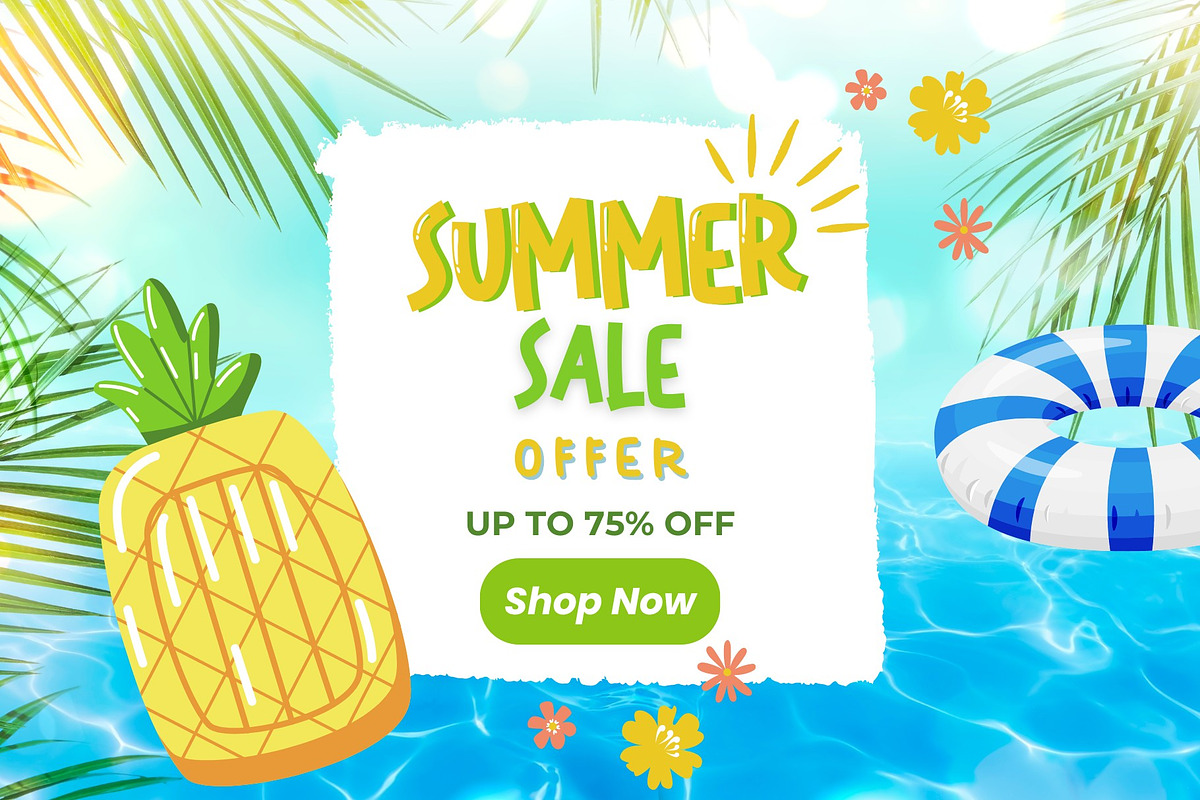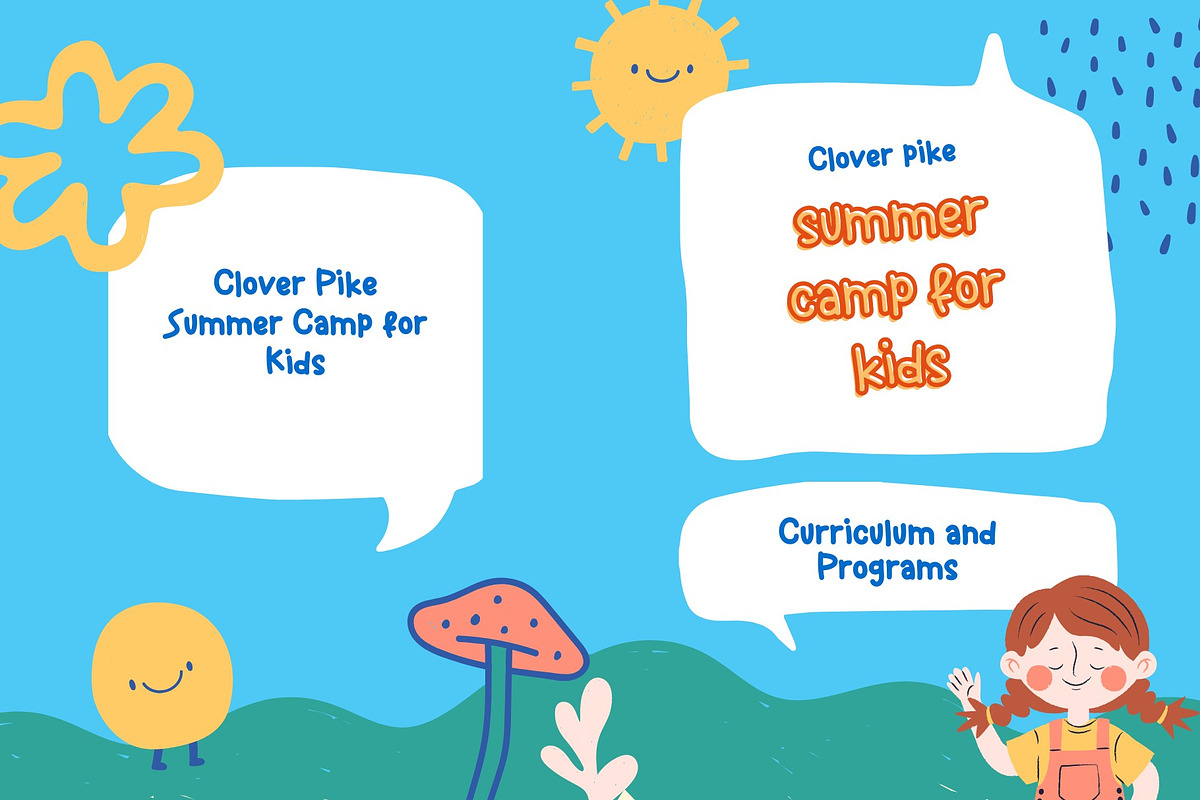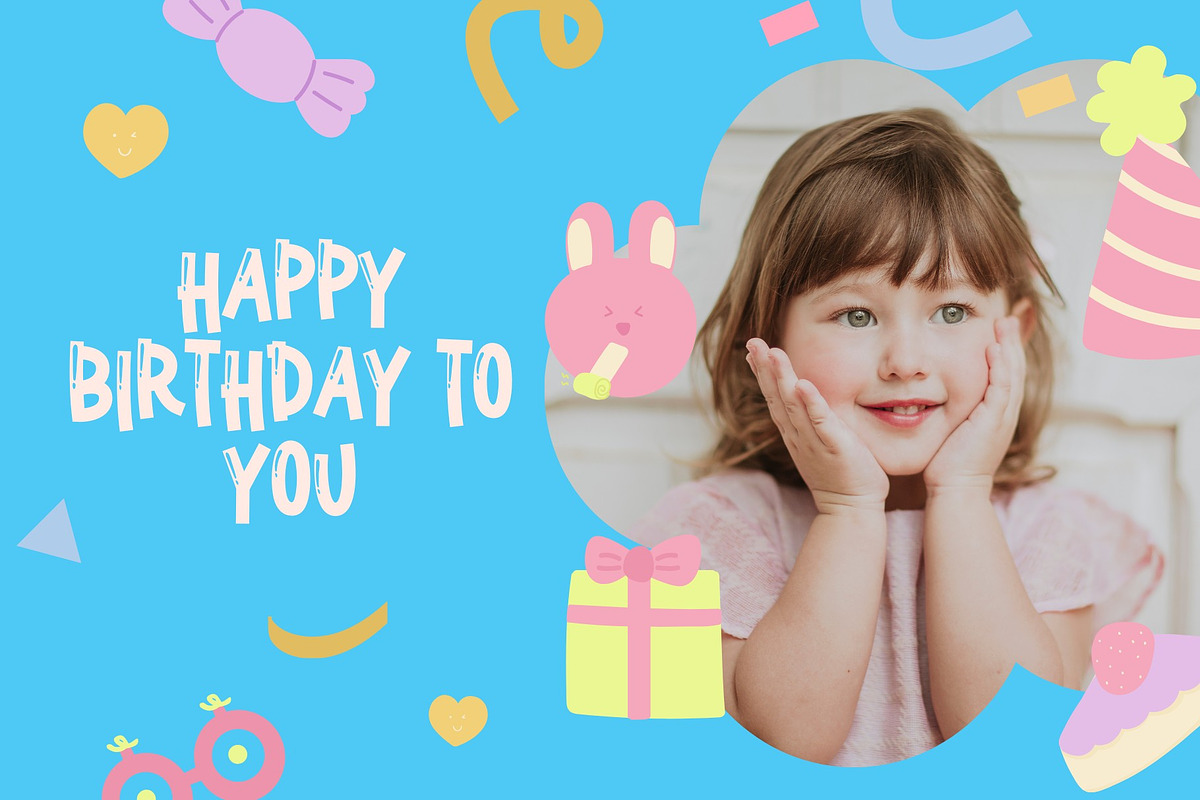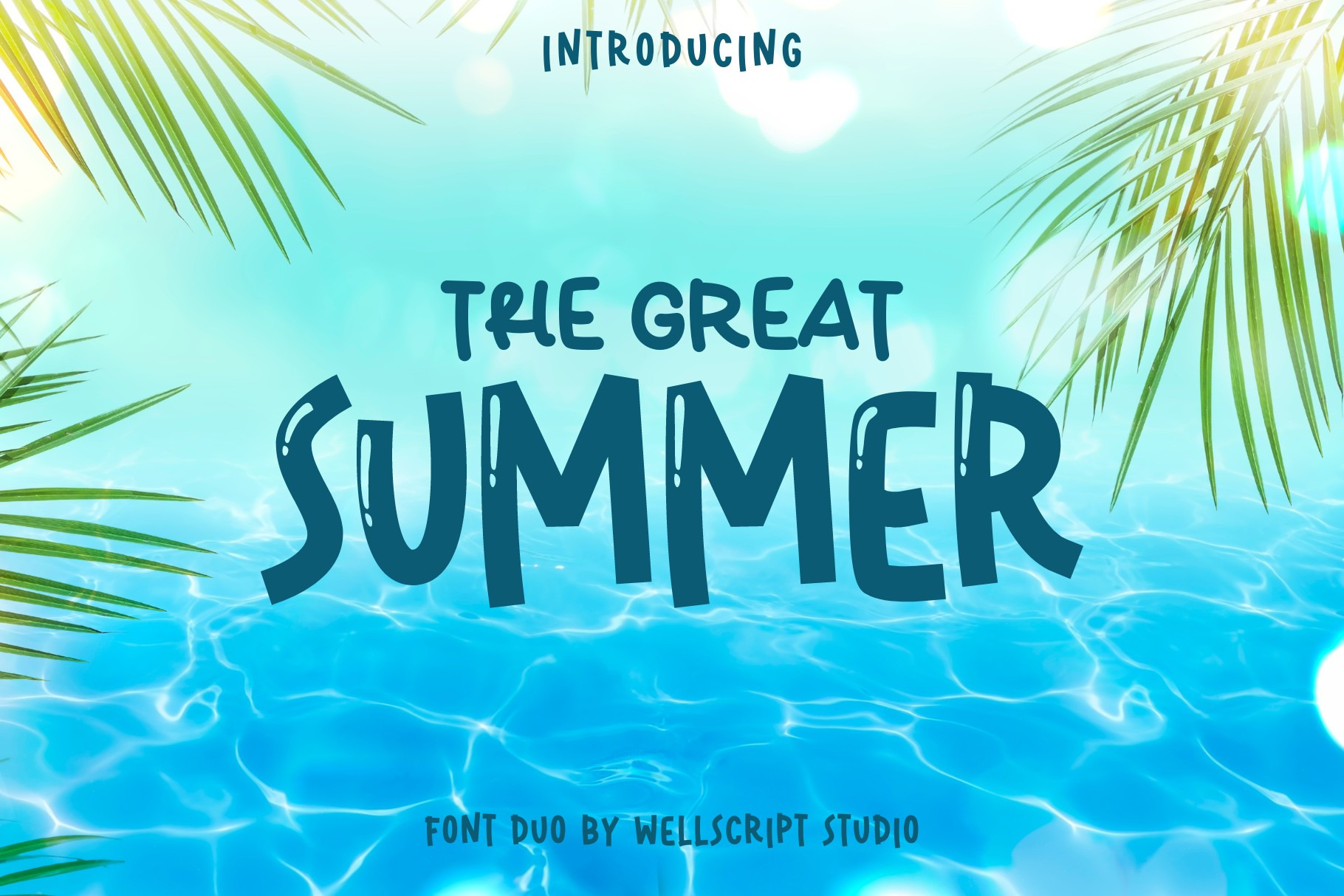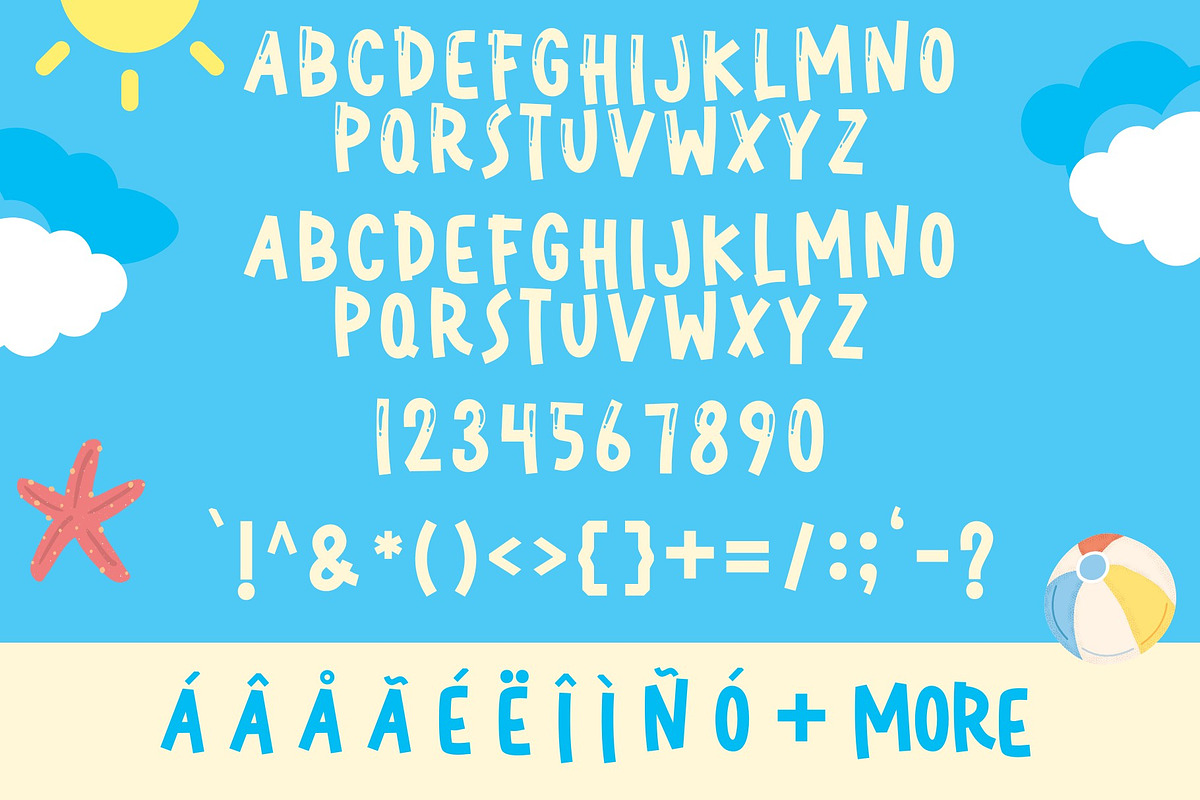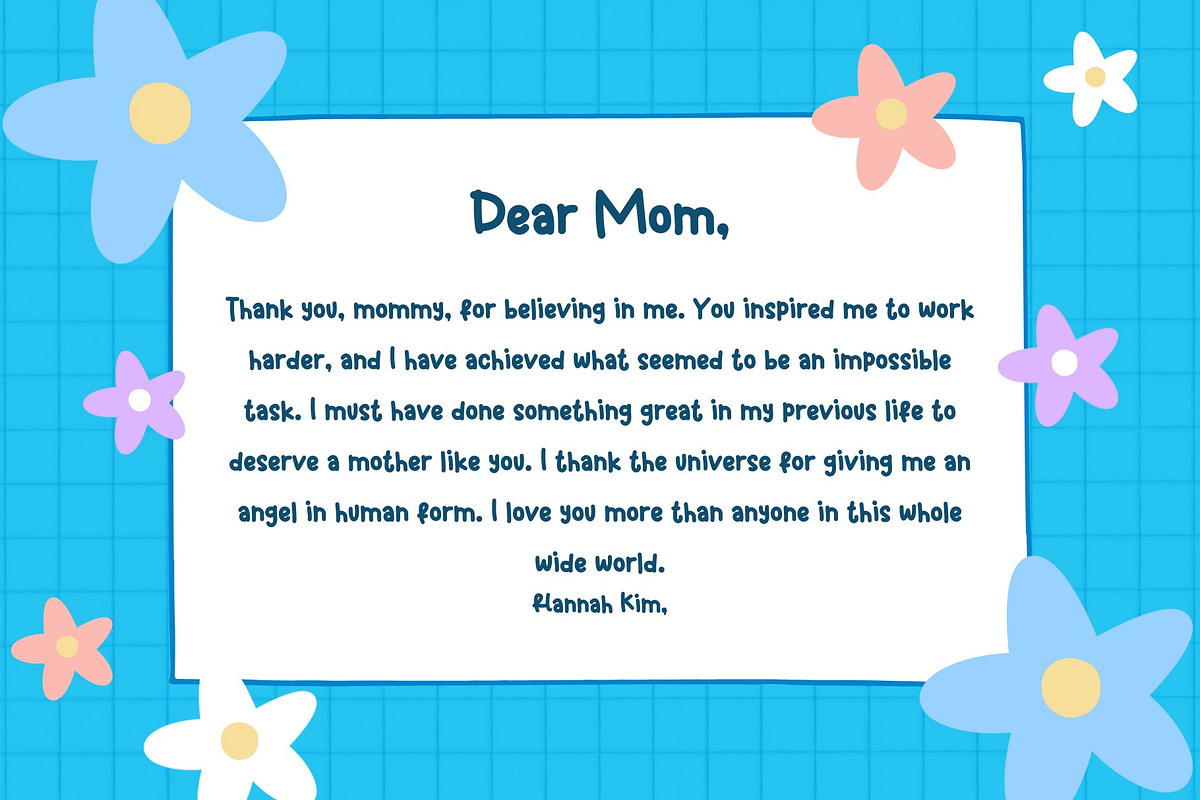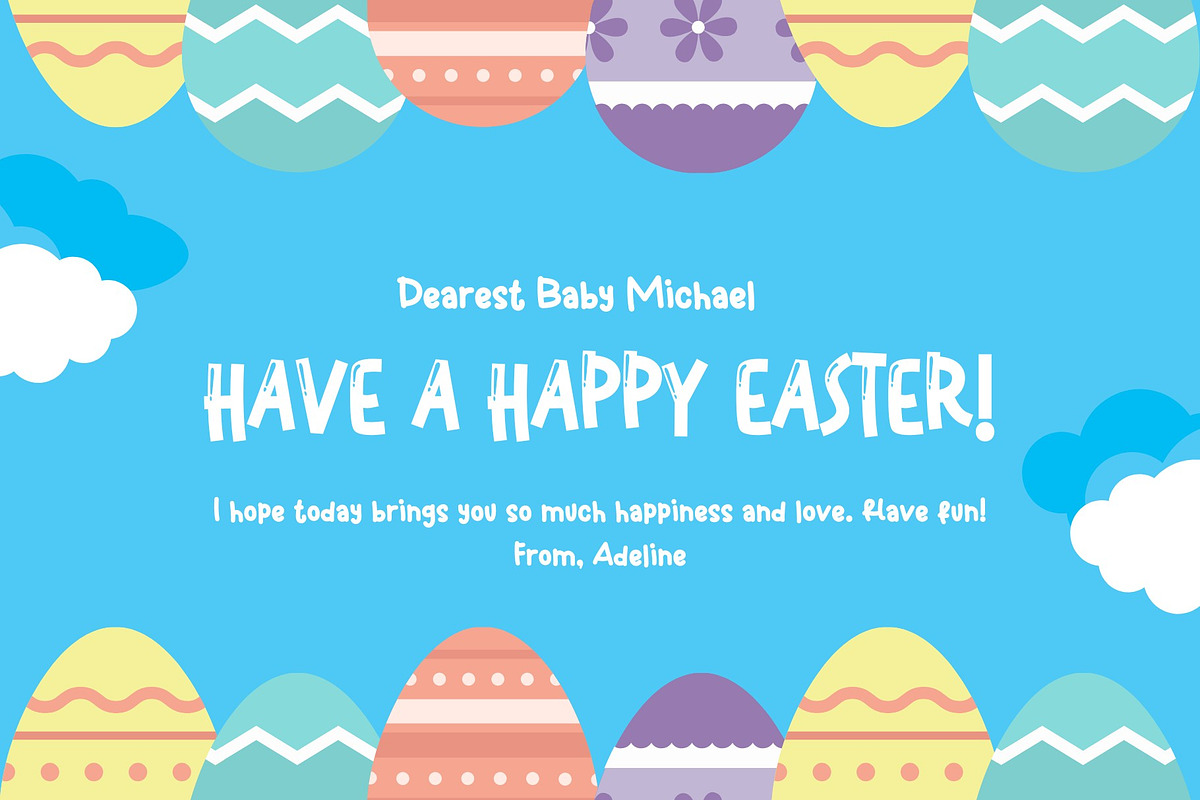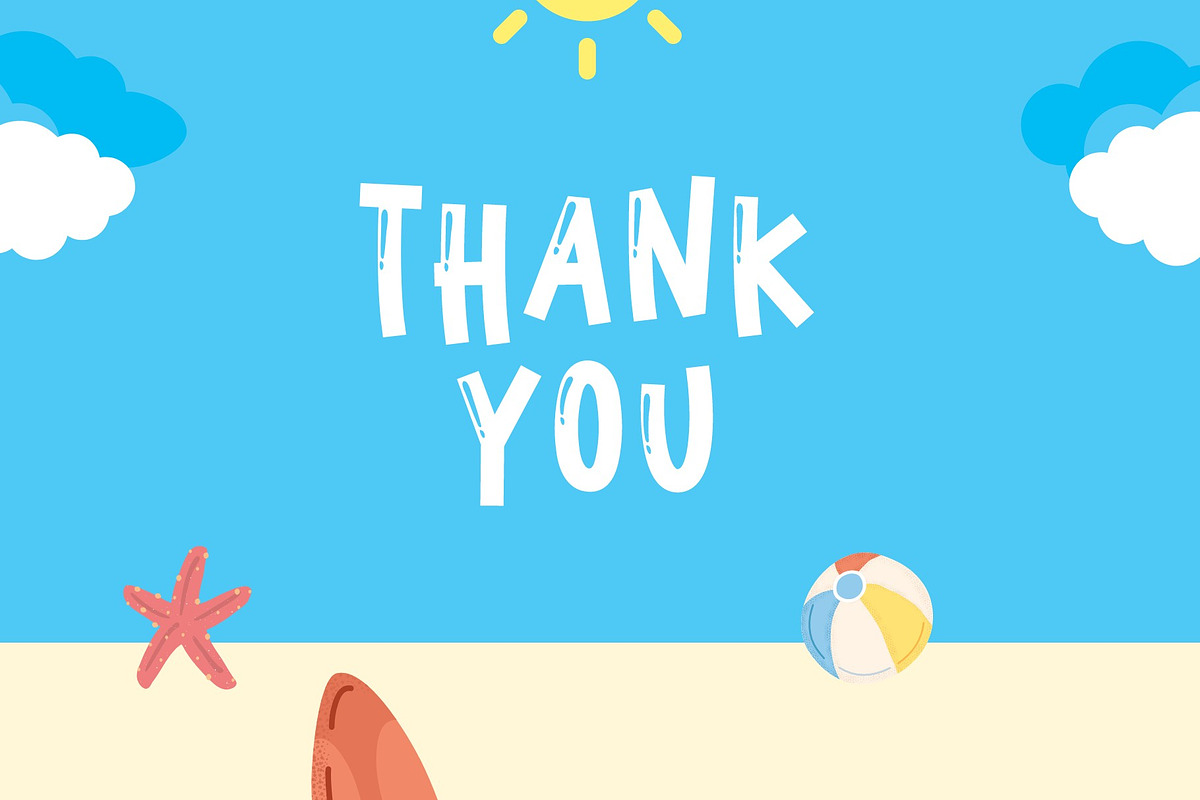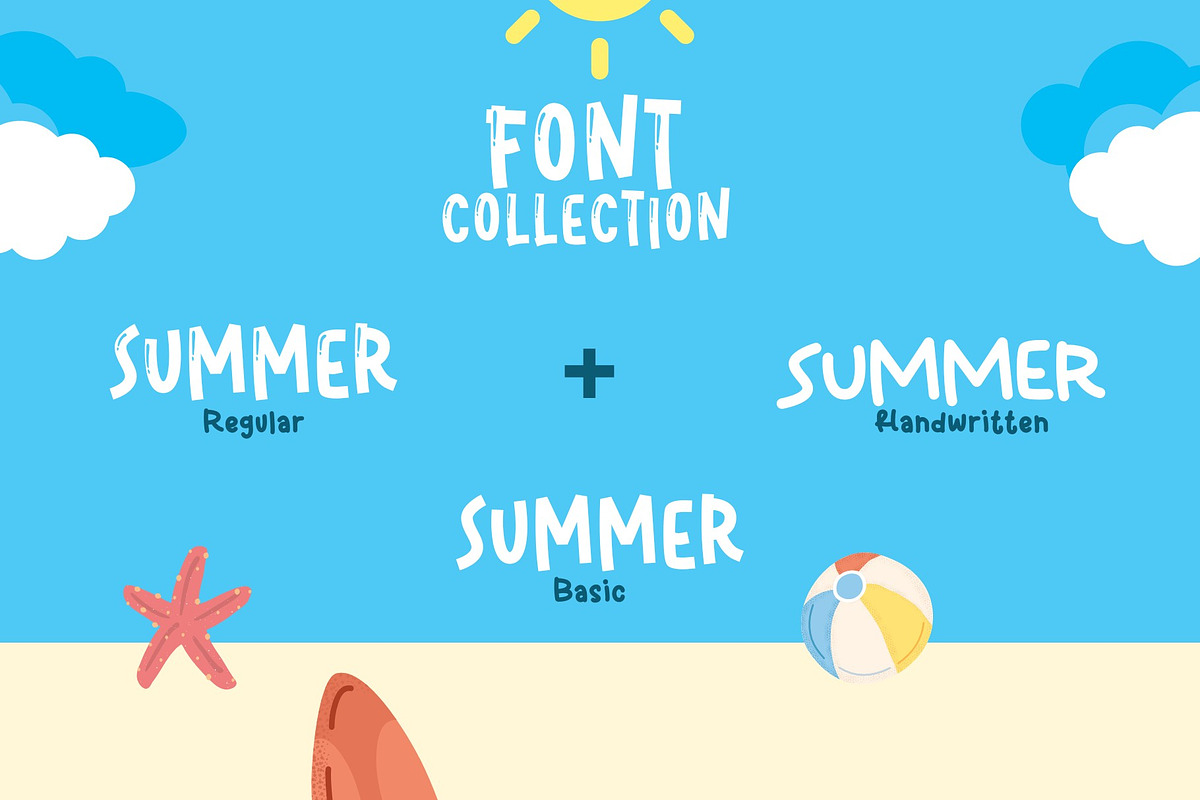
The Great Summer - Font Duo
Say Hello to The Great Summer! A fun display font duo with incredibly unique. Add this font to your favorite Kids and Summer themed ideas. Perfect for playful quotes, packaging, branding, invitations, greeting cards and so much more.